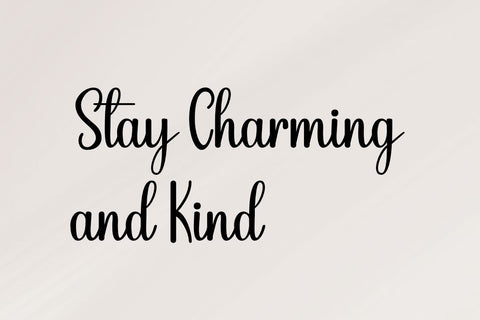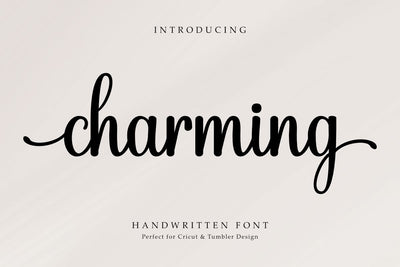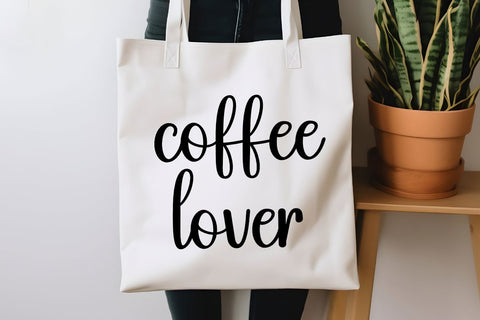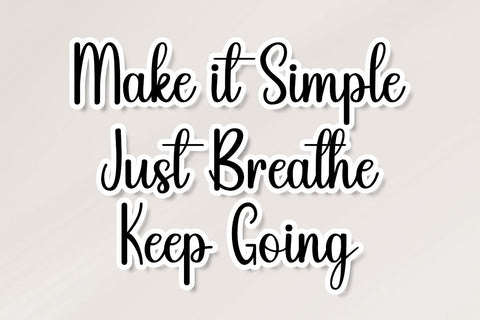
Charming - Beauty Handwritten Font
Charming is a clean and simple handwritten font. It looks great on a variety of design ideas and adds a sweet and friendly touch.
Perfect for tumblers, mugs, stickers, teacher designs, Cricut projects, quotes, and DIY crafts. This font is easy to use and suitable for both personal and commercial projects.